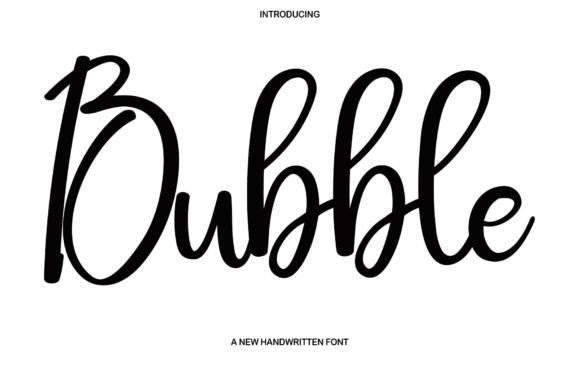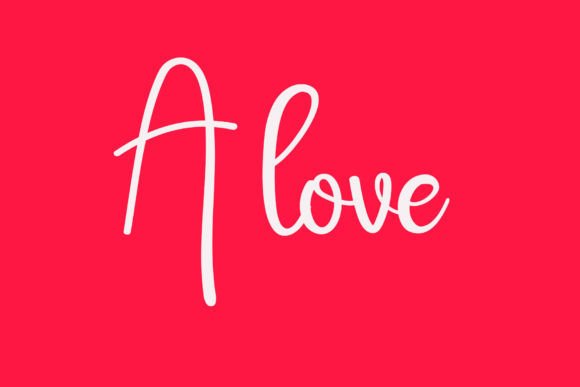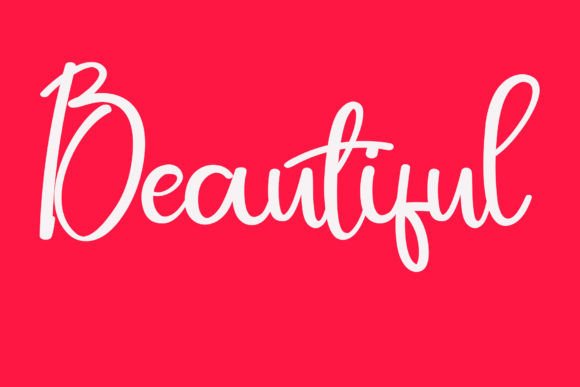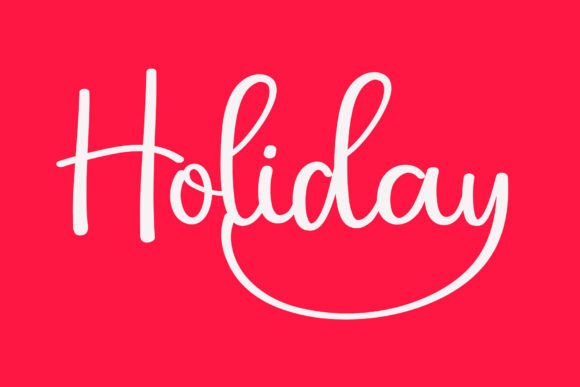
About the Bubble Font
Explore the possibilities with Bubble Font, a font that offers both beauty and functionality. Bubble is a trendy handwritten font with a contemporary atmosphere and impeccable form, inspired by timeless classic calligraphy. It will add elegance and class to any of your design projects. This font can be used to write various kinds of products according to the aspect of each need.
Bubble Font excels in headline applications, short textual elements on branding materials, and stylish packaging designs. Its elegant, yet informal style works well for invitations, short quotes within larger layouts, or as a signature element. However, its script-like nature makes it less suitable for body text or lengthy paragraphs, and should be avoided in UI contexts where readability is paramount.
The slightly playful yet refined personality of Bubble Font is best complemented by pairings such as a clean sans-serif like Montserrat for body text or a more geometric sans-serif like Futura for a modern contrast. For a more traditional feel, consider pairing it with a subtle serif typeface such as Garamond or Lato.
Bubble Font’s core personality is sophisticated yet approachable, making it ideal for brands aiming for a balance of elegance and approachability.